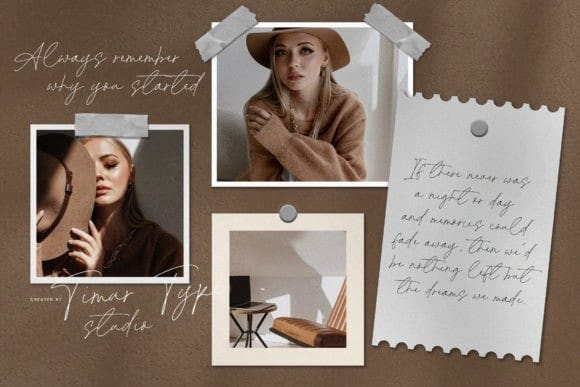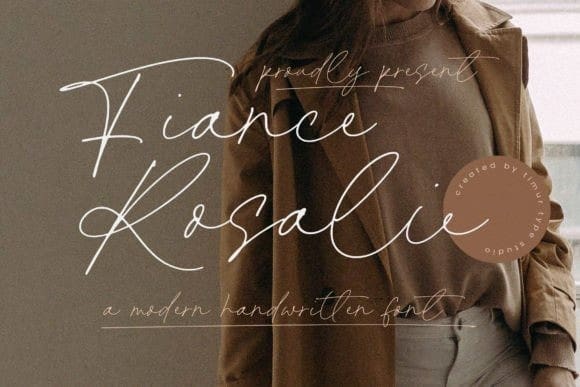
Fiance Rosalie Font
Fiance Rosalie Font is a dazzling script font. This font is neatly crafted and highly detailed. Whatever the topic, this font will be a wonderful asset to your font library, as it has the potential to enhance any creation.